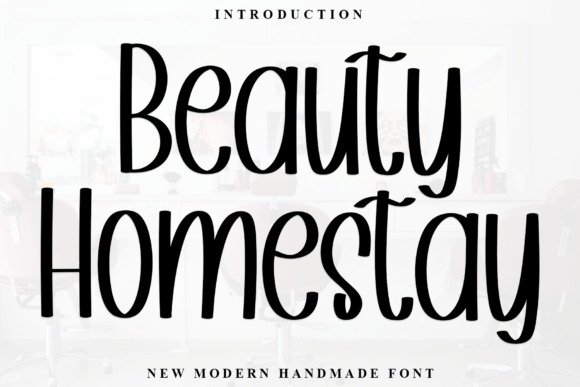
Beauty Homestay Font: Elevate Your Designs with Elegance
Are you looking for a font that can add a touch of elegance and sophistication to your designs? Look no further than the Beauty Homestay font. This stunning font is perfect for creating beautiful banners, YouTube thumbnails, logo designs, wedding invitation cards, clothing mockups, and more. In this article, we’ll explore the features and benefits of the Beauty Homestay font and how it can elevate your designs to the next level.
What is Beauty Homestay Font?
Beauty Homestay font is a modern, script-type font that is designed to provide a smooth and natural feel to your work. The font features beautiful strokes and a elegant touch that makes it perfect for a wide range of design applications. Whether you’re a graphic designer, a digital artist, or a DIY enthusiast, the Beauty Homestay font is a great addition to your font collection.
Key Features of Beauty Homestay Font
- Smooth Touch: The Beauty Homestay font features a smooth touch that gives your designs a natural and elegant feel.
- Beautiful Strokes: The font’s beautiful strokes add a touch of sophistication and elegance to your designs.
- Versatile: The Beauty Homestay font is suitable for a wide range of design applications, including banners, YouTube thumbnails, logo designs, wedding invitation cards, clothing mockups, and more.
- Easy to Read: The font is easy to read, making it perfect for body text and headings.
Benefits of Using Beauty Homestay Font
The Beauty Homestay font offers several benefits that make it a great choice for designers and DIY enthusiasts. Some of the benefits include:
- Elegant Designs: The font’s elegant touch and beautiful strokes help create elegant and sophisticated designs.
- Time-Saving: The Beauty Homestay font is easy to use and saves you time and effort in creating beautiful designs.
- Unique Look: The font’s unique look and feel help your designs stand out from the crowd.
- Multi-Purpose: The Beauty Homestay font is suitable for a wide range of design applications, making it a great addition to your font collection.
Design Ideas Using Beauty Homestay Font
The Beauty Homestay font is versatile and can be used for a wide range of design applications. Here are some design ideas to get you started:
- Banners: Create beautiful banners for your website, social media, or advertising campaigns.
- YouTube Thumbnails: Create eye-catching YouTube thumbnails that grab attention.
- Logo Designs: Create elegant and sophisticated logo designs for your brand or business.
- Wedding Invitation Cards: Create beautiful wedding invitation cards that set the tone for the big day.
- Clothing Mockups: Create stunning clothing mockups that showcase your designs.
In conclusion, the Beauty Homestay font is a beautiful and versatile font that can elevate your designs to the next level. Its smooth touch, beautiful strokes, and elegant feel make it perfect for a wide range of design applications. Whether you’re a graphic designer, a digital artist, or a DIY enthusiast, the Beauty Homestay font is a great addition to your font collection. So why wait? Download the Beauty Homestay font today and start creating stunning designs!